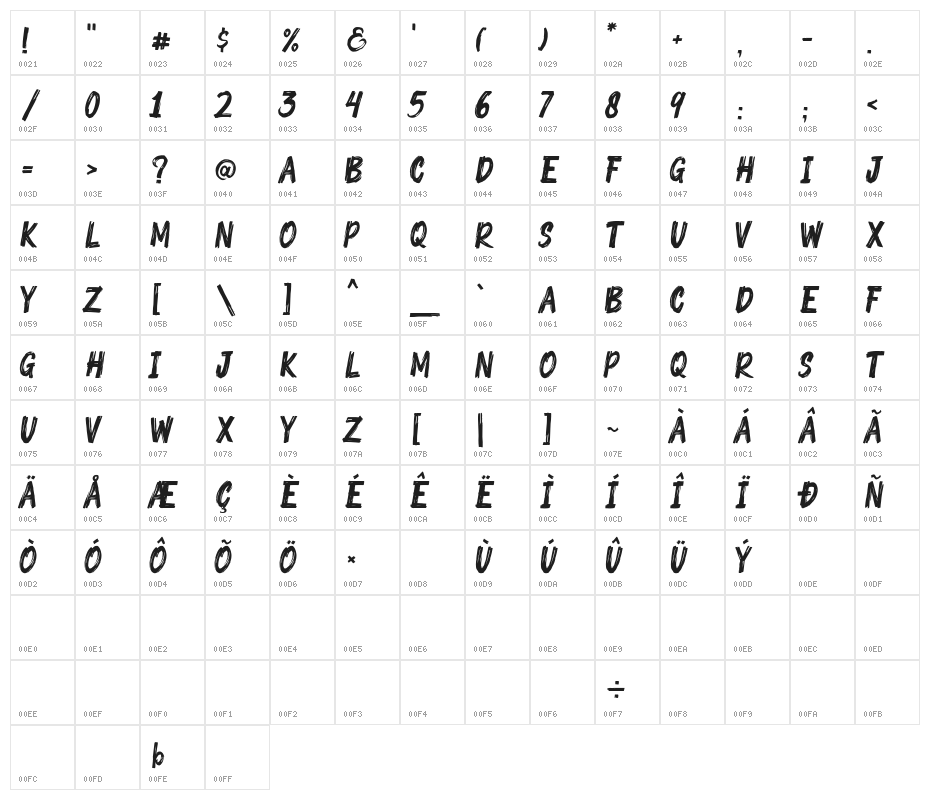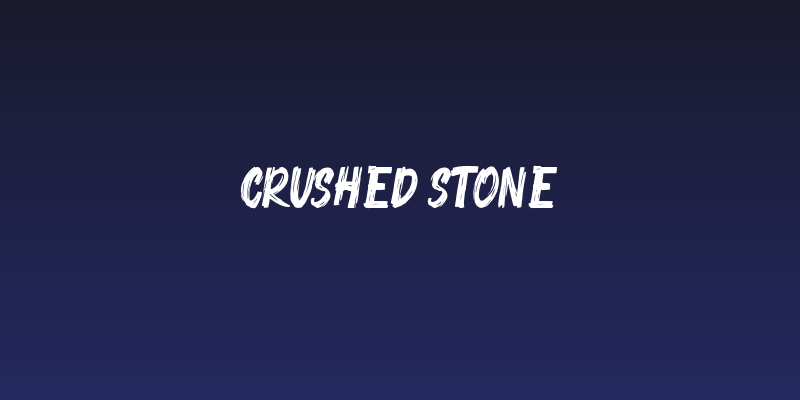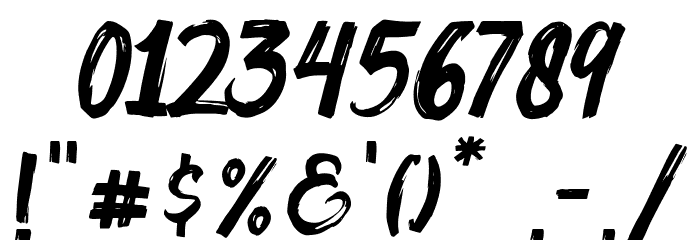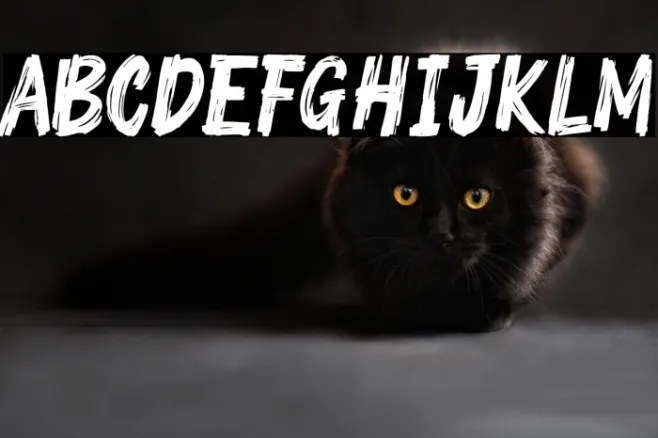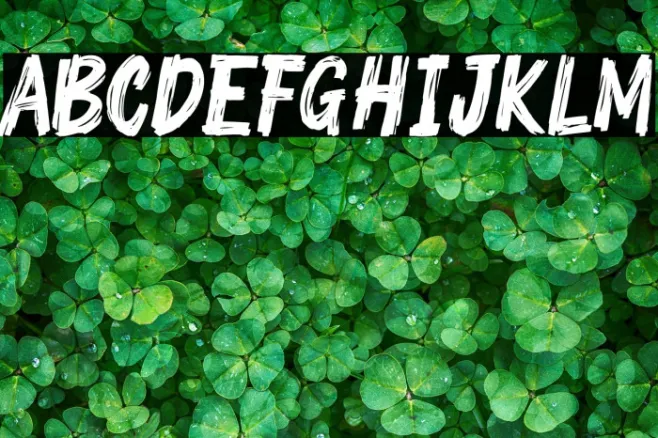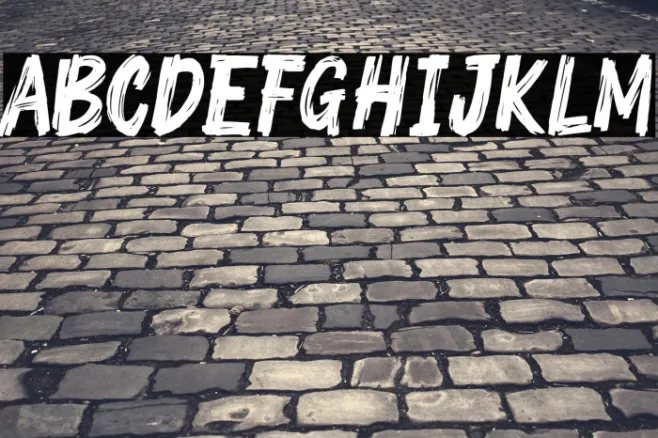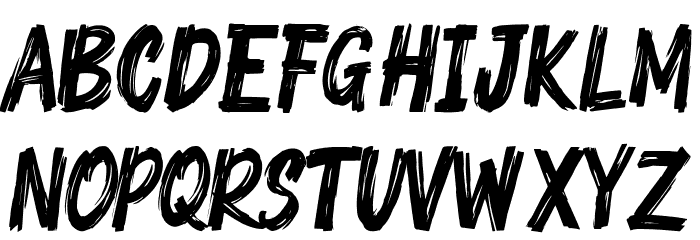
Crushed Stone Font
Crushed Stone Description
This font features a bold, dynamic style with a hand-painted appearance, characterized by its rough, textured edges and energetic strokes. The letters are slightly slanted, giving a sense of movement and urgency. The uppercase and lowercase letters maintain a consistent style, with the uppercase being slightly larger and more pronounced. Numbers and special characters follow the same aesthetic, ensuring a cohesive look across all text elements. The font's rugged and artistic nature makes it stand out, ideal for projects that require a strong visual impact.
| Overall Style | Modern, Artistic |